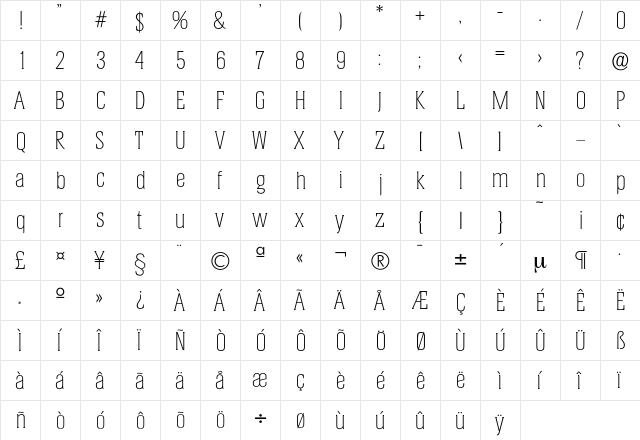
Helium-Xlight Regular
Design Context for Helium-Xlight Typeface
Helium-Xlight takes a measured approach to typography — its balanced proportions and neutral character make it a reliable workhorse for both digital and print work. Its slender proportions lend an understated elegance to any composition.